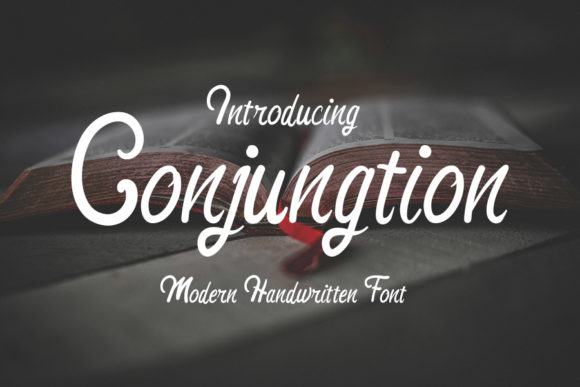
Conjungtion is an eminently fine and highly engaging script font that exudes elegance and grace. Its meticulous design combines sweeping curves with a delicate touch, creating a visual masterpiece that is both captivating and unforgettable.
Immerse yourself in the world of Conjungtion, where your creative visions take flight. This versatile font lends itself effortlessly to a myriad of applications, from fashion branding to editorial design. Its inherent charm adds a touch of sophistication to any project, transforming it into a breathtaking work of art.
Unleash the power of Conjungtion and elevate your designs to new heights. Its refined aesthetic will effortlessly captivate your audience, leaving a lasting impression that resonates long after the final stroke.
Indulge in the exquisite beauty of Conjungtion, a font that will ignite your imagination and leave an enduring legacy upon your creative endeavors.